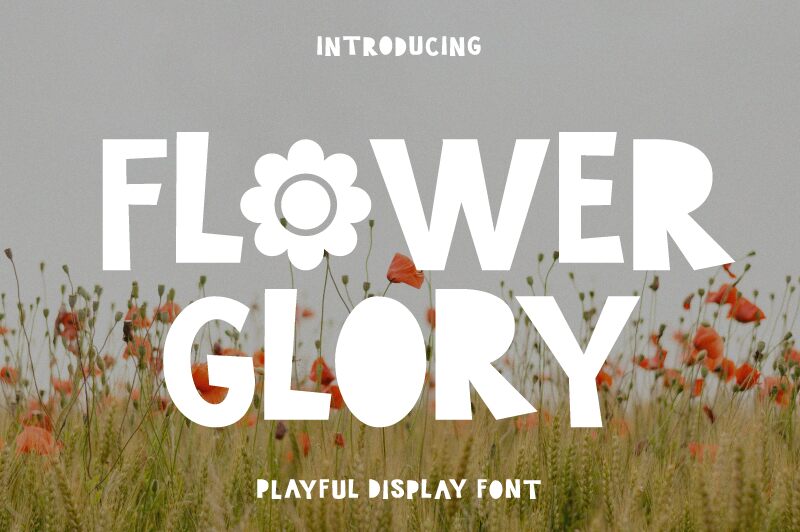
Flower Glory Regular
Flower Glory is a bold, playful cartoon display font designed by Prio Nurokhim Aji. Perfect for logos, titles and posters, this font will bring an extra touch of fun and personality to your creative projects.